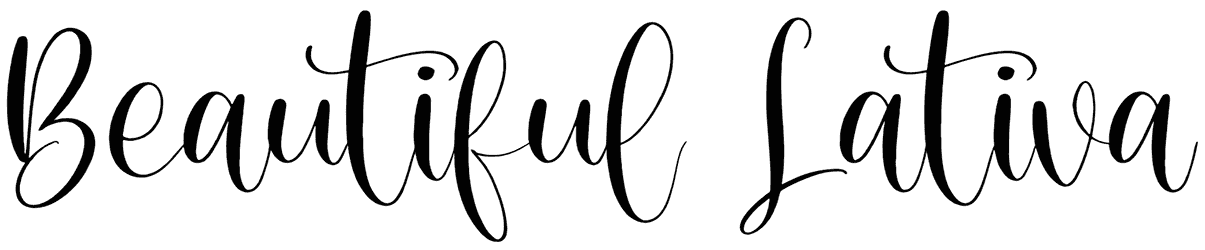
Beautiful Lativa Font
Beautiful Lativa is a lovely and love font that offers decorative and luxury twists to bring your content to life. This script font is made especially for those who want to add a beautiful and refreshing look to their designs.
The personal and unique nature of this handwritten font has made it one of the best choices for branding in the form of book covers, albums, product packaging, and social media posts.